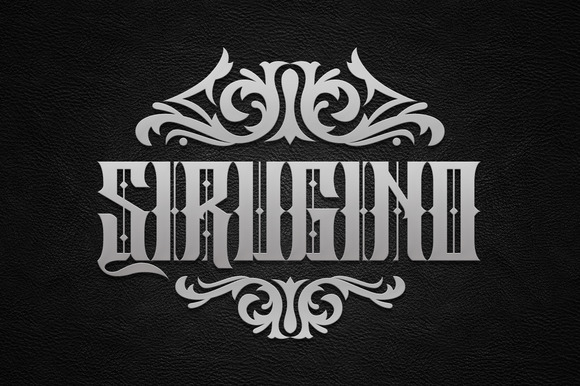
In a world of ordinary fonts, Sirugino blackletter stands out as a rare gem, a fusion of the gothic and black-letter styles that captivates with its bold presence and intricate details. This stunning creation by Arterfak Project is not just a collection of letters; it's an art form, a testament to the power of creativity and the beauty of the written word.
With Sirugino, you can transform your designs into captivating masterpieces that speak volumes without uttering a single word. Its dark, bold strokes command attention, while its intricate flourishes add a touch of elegance and sophistication that leaves a lasting impression.
Imagine your logo, adorned with Sirugino, standing out boldly against a sea of blandness, demanding recognition and respect. Picture your website, its headlines and body text radiating an aura of authority and trustworthiness, captivating readers and turning them into loyal customers. Envision your social media posts, adorned with Sirugino, breaking through the noise and clutter, grabbing eyeballs, and sparking conversations.
Sirugino is more than just a font; it's a statement, a reflection of your discerning taste and your refusal to settle for mediocrity. It's a tool that empowers you to communicate with impact, to make your words resonate with power and grace.
Don't let your designs fade into oblivion. Embrace the boldness of Sirugino and watch as your words transform into works of art, leaving an indelible mark on the minds of your audience.